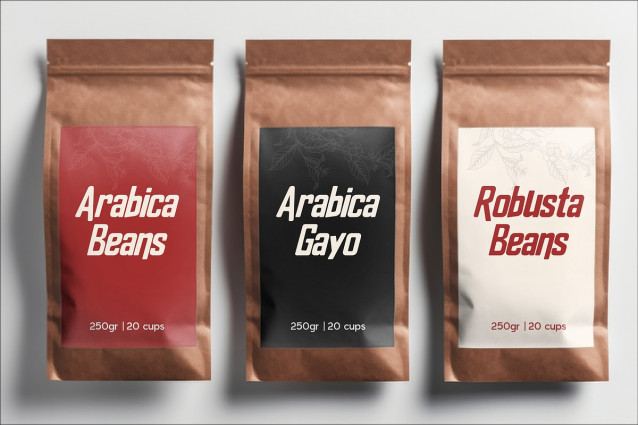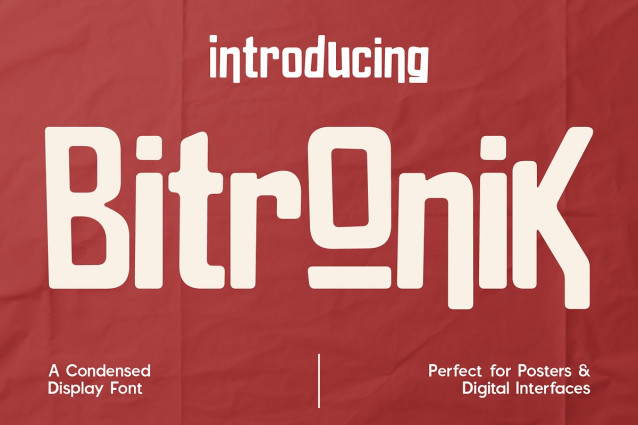
CF Bitronik Font
CF Bitronik Font , a sharp, condensed display font crafted for the modern digital world. Its clean yet edgy letterforms feature subtle modular touches and geometric precision, making it perfect for tech-inspired designs, posters, UI interfaces, logos, and branding that needs a strong digital personality.
Bitronik balances boldness and clarity with a stylish flair, allowing your messages to look futuristic, innovative, and undeniably eye-catching.